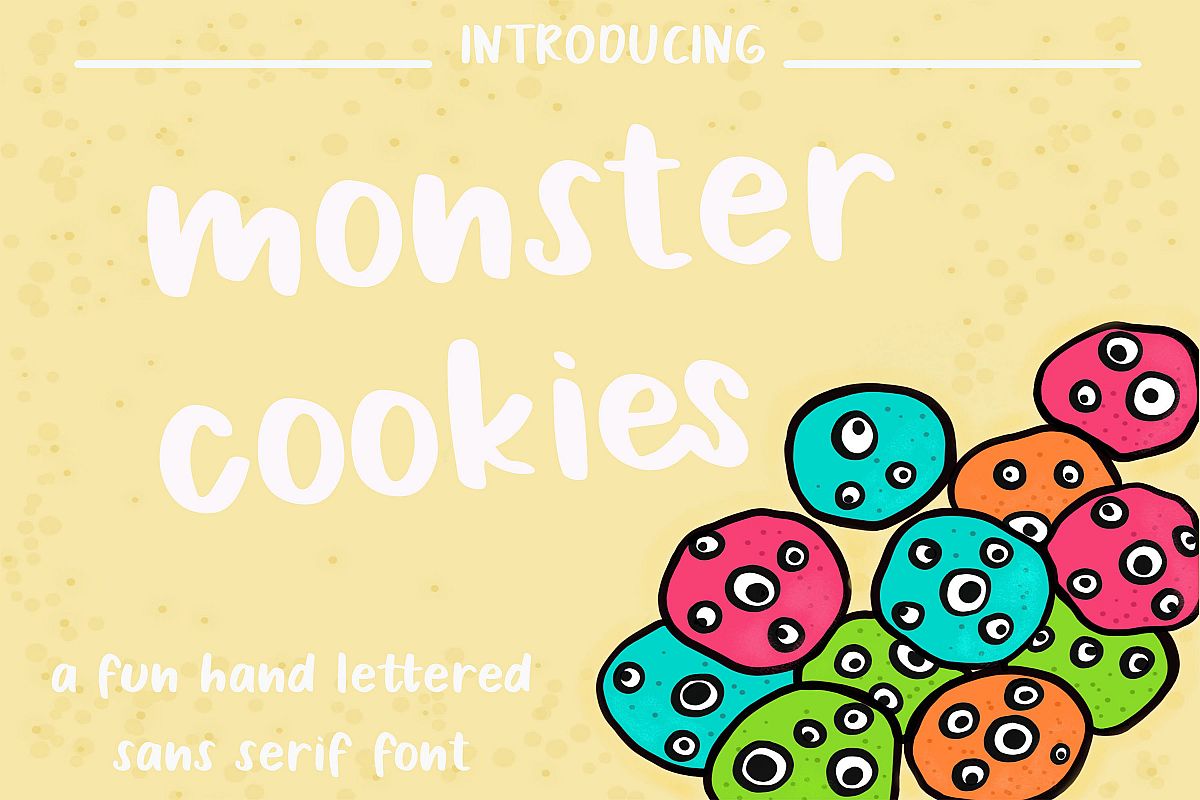
Monster Cookies
The Monster Cookies is a fun handwritten sans serif font that’s great for quotes, logotype, badges, labels, packaging, t-shirt, or simply to use it in your next design project.
It offers support for all characters of English language and most Western European accented characters. Standard punctuation glyphs are included.
You will also get 2 ligatures.